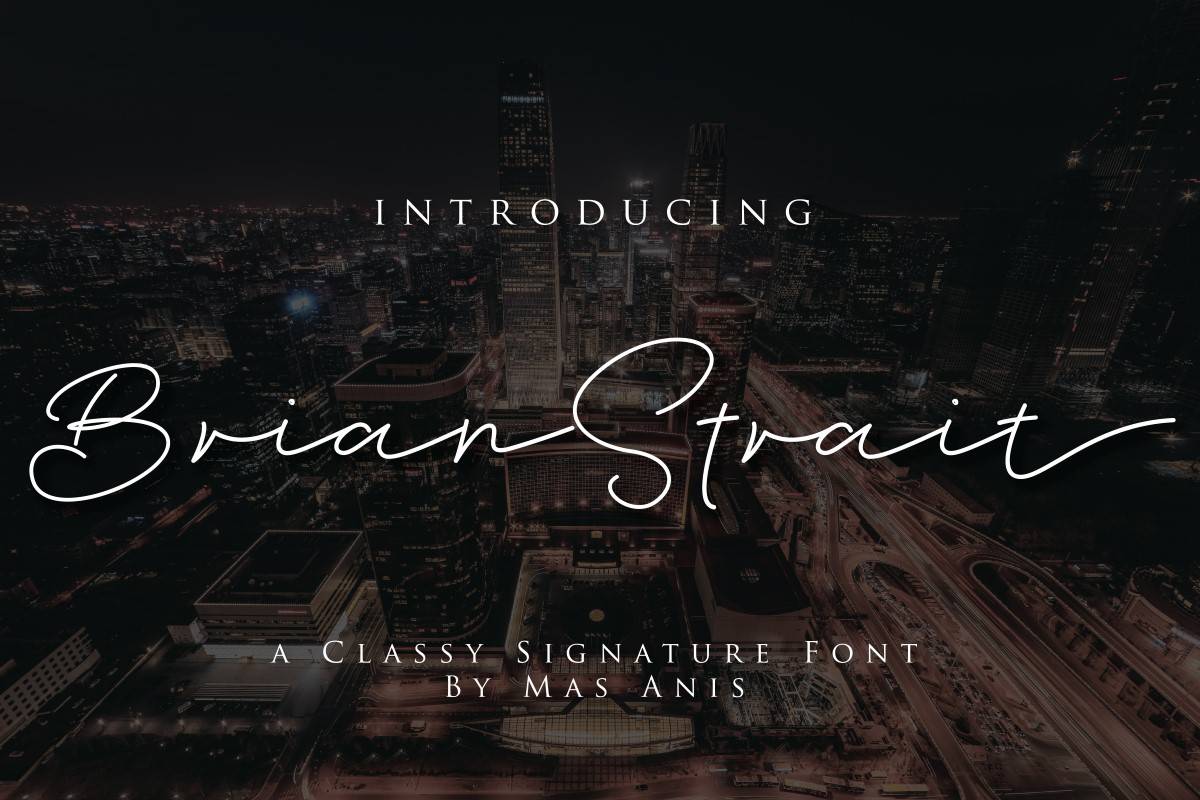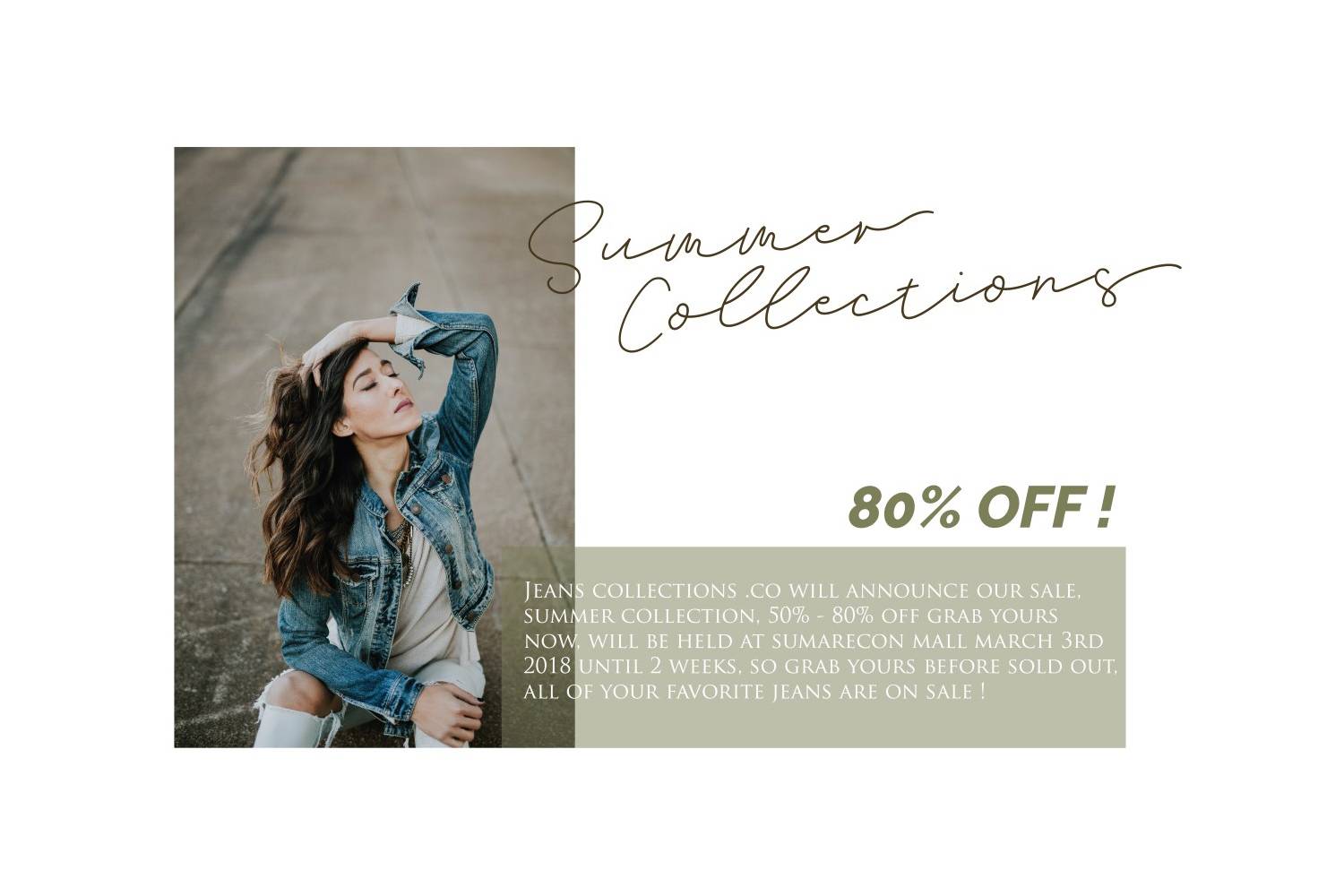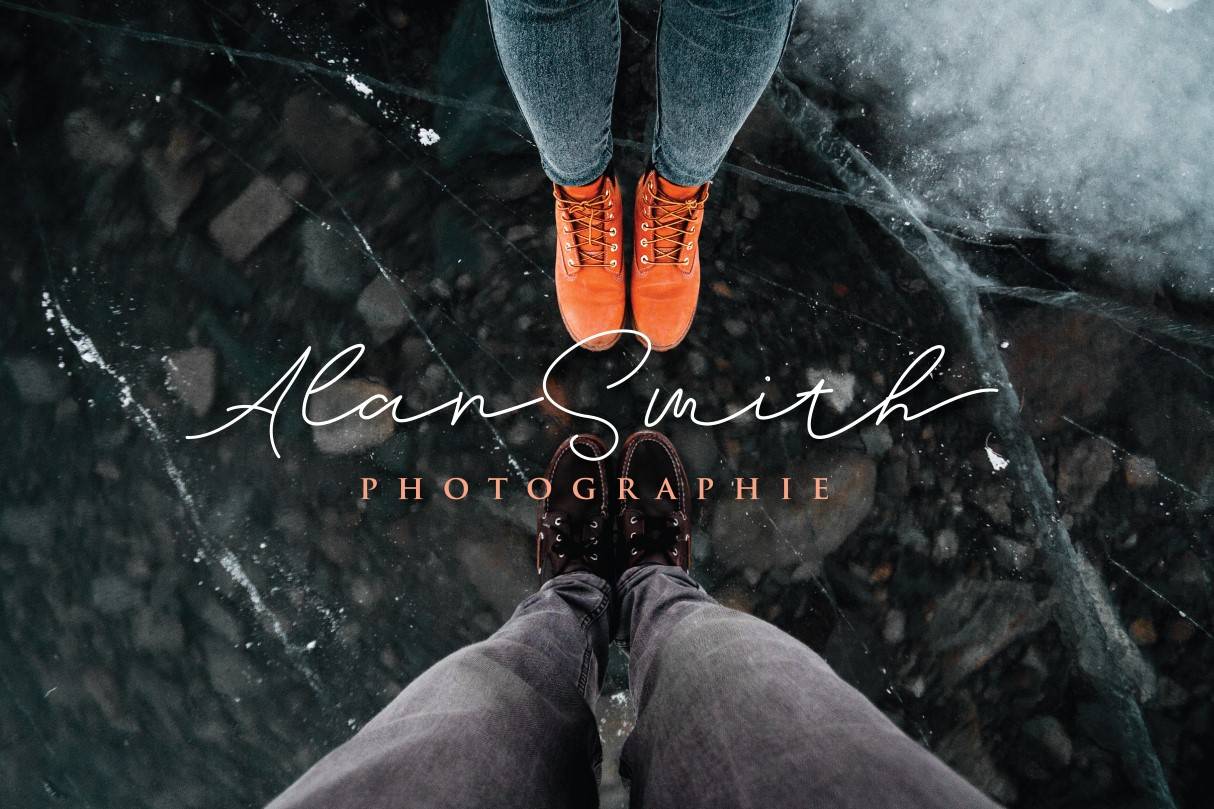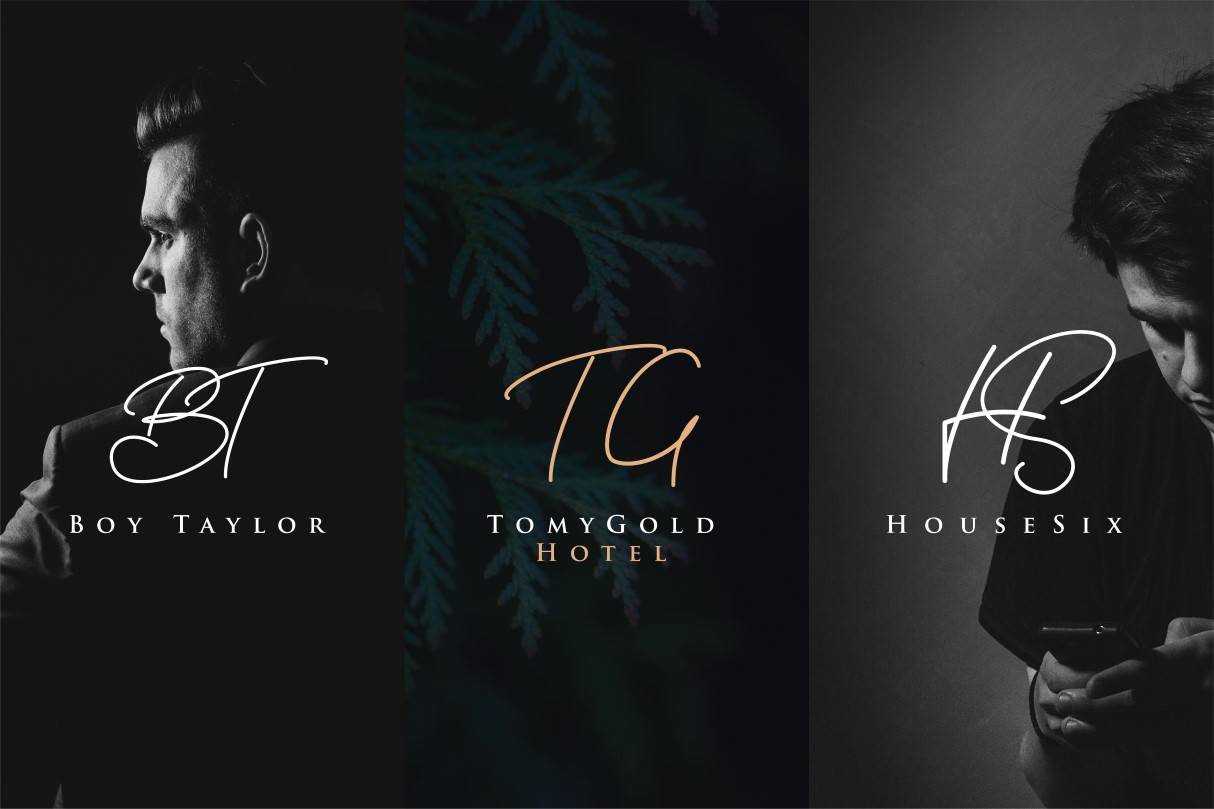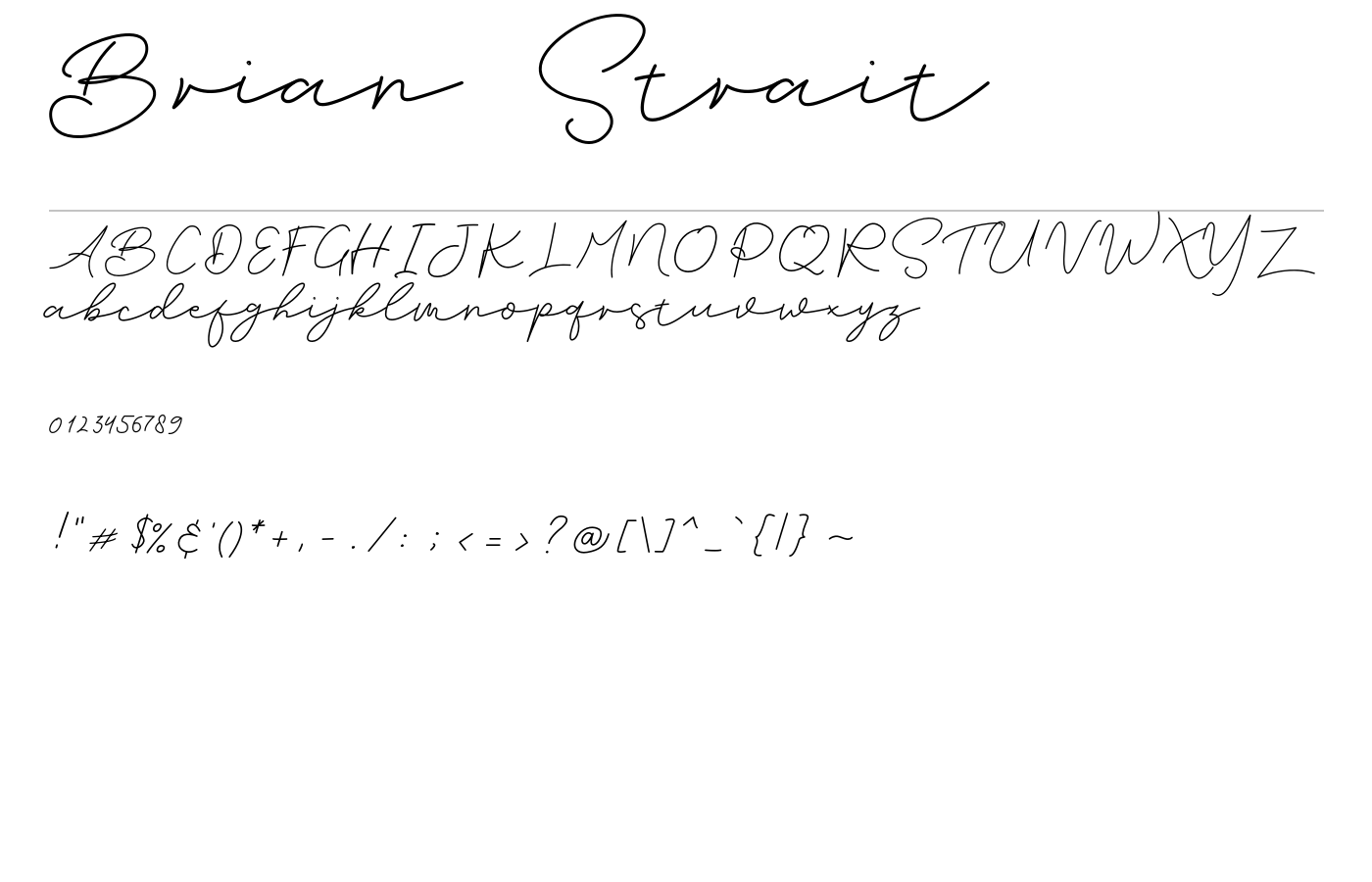
Brian Strait is a delicate and elegant script font with a handwritten feel, featuring thin, flowing strokes and a whimsical, airy style. Its light weight and organic letterforms make it perfect for personal branding, invitations, and creative projects that seek a stylish yet approachable touch. This font shines in designs where a graceful, sophisticated mood is desired without sacrificing readability.
Brian Strait Font
About Brian Strait Font